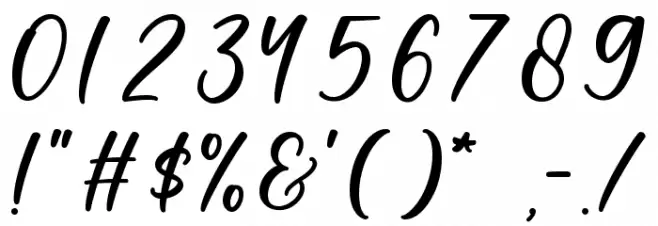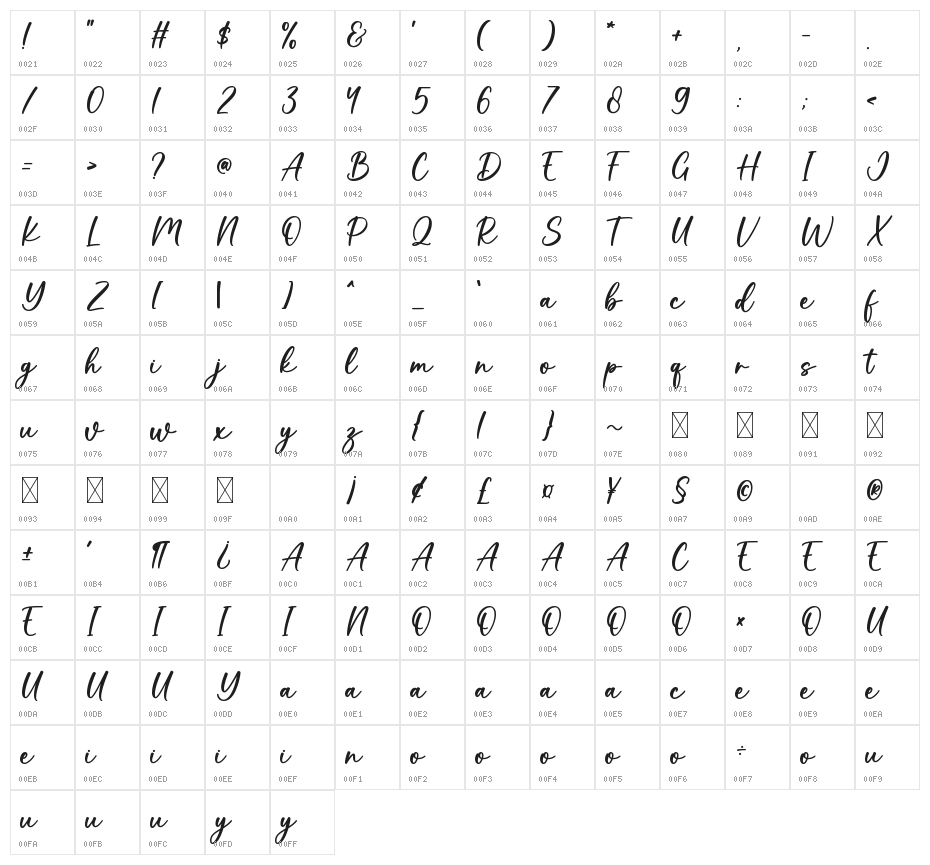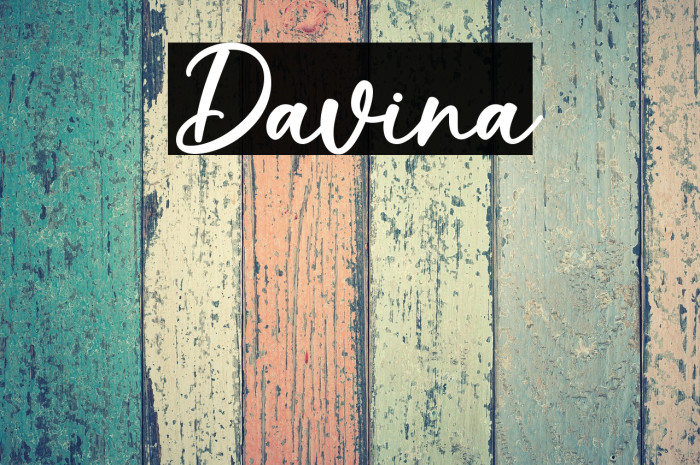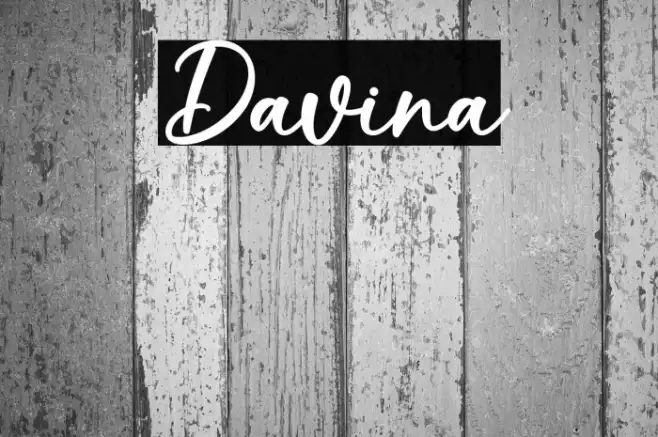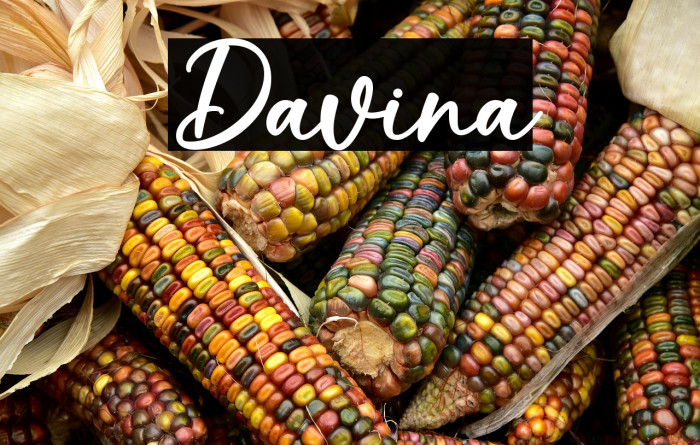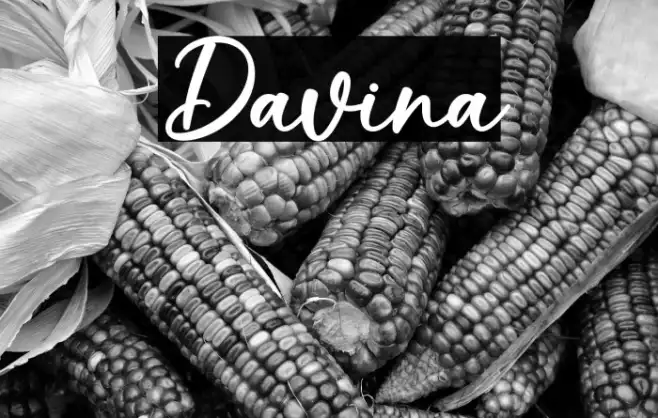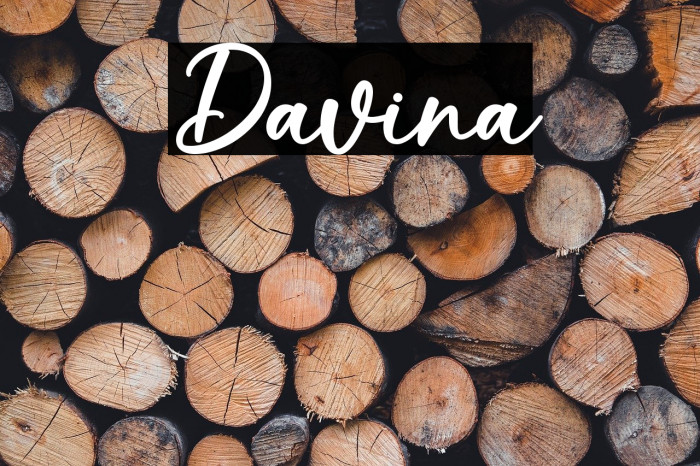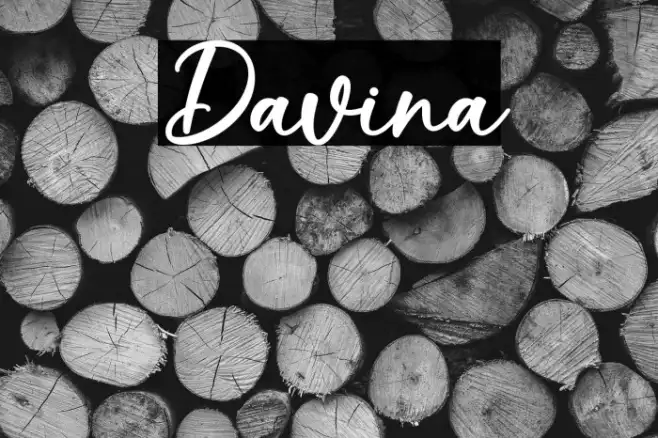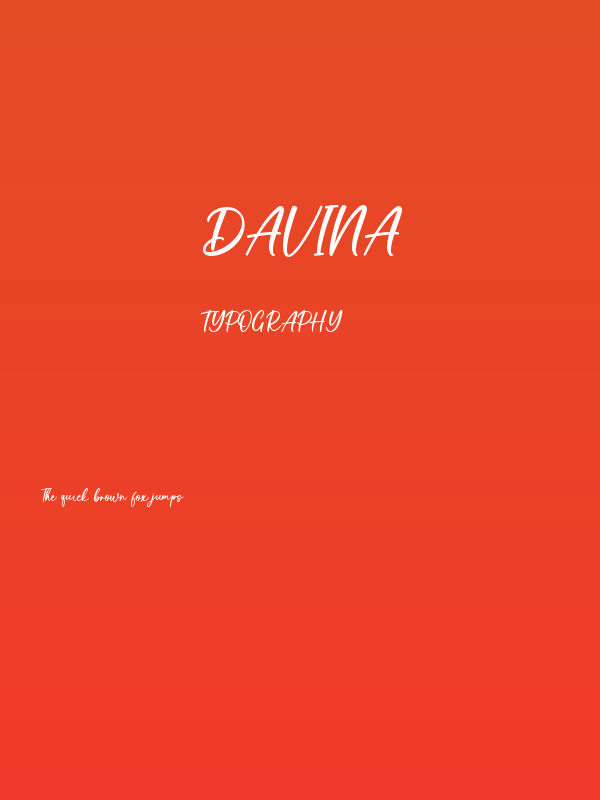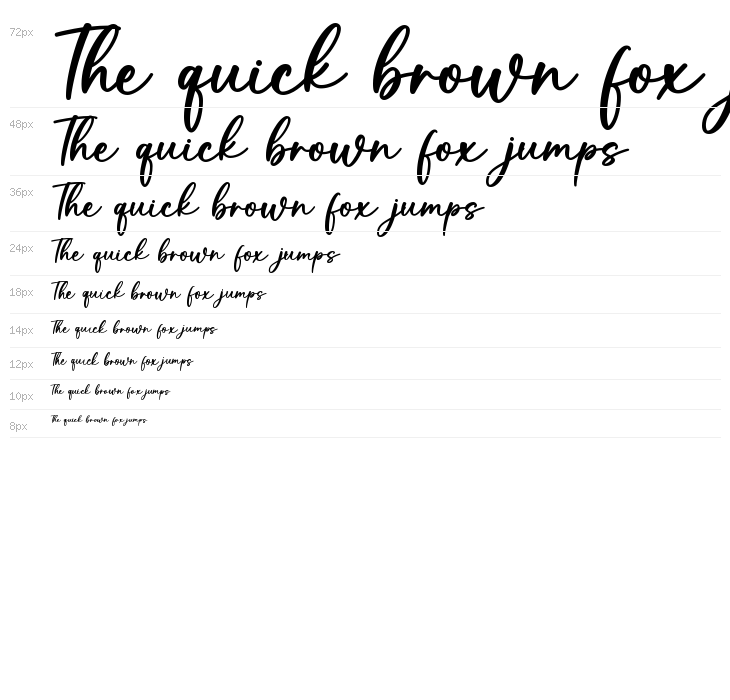
Davina Font
Davina Description
This font exudes a lively and expressive character with its fluid, cursive style. The letters are connected in a smooth, flowing manner, reminiscent of elegant handwriting. The uppercase letters are bold and prominent, while the lowercase letters maintain a consistent flow, enhancing readability. The numerals and special characters are crafted with the same attention to detail, ensuring a cohesive look across all elements. The font's playful yet sophisticated appearance makes it suitable for a variety of creative projects.
| Use Case | Logos, Invitations, Social Media Graphics |
| Proposed Projects | Ideal for wedding invitations, greeting cards, branding, and social media graphics. |